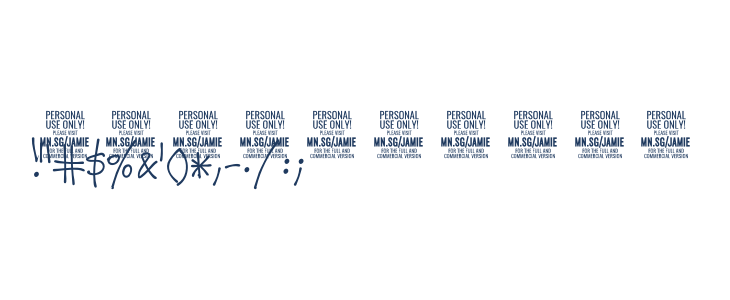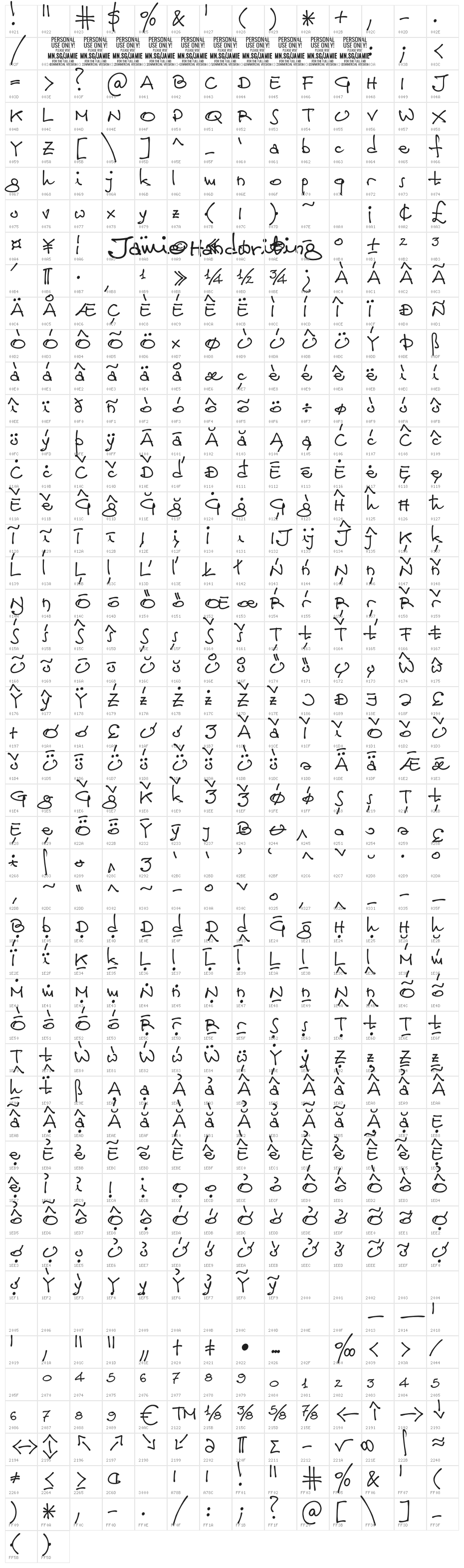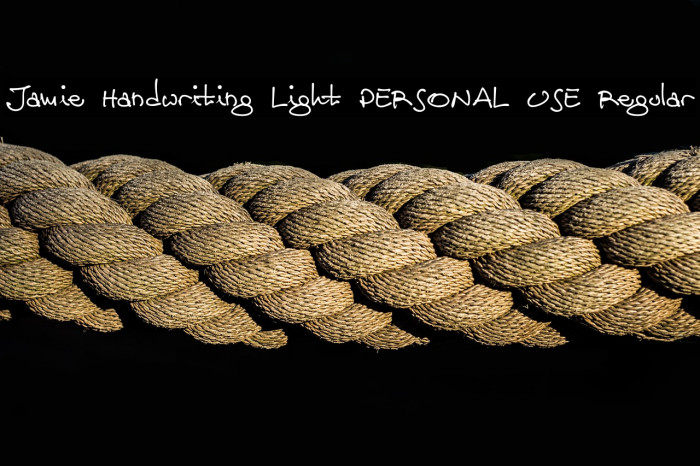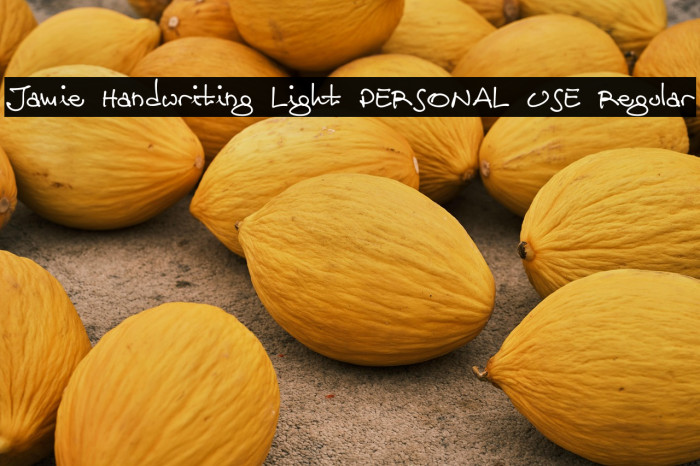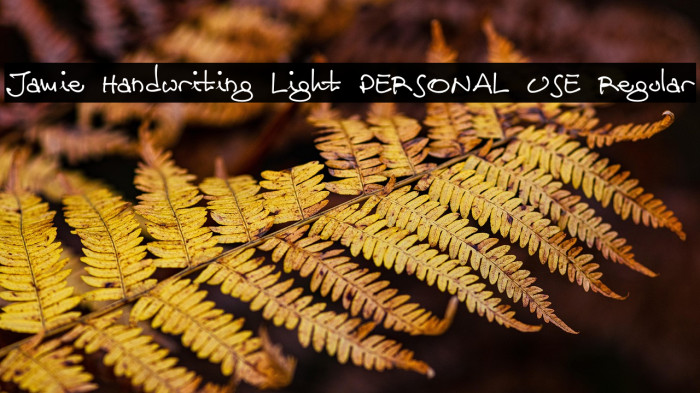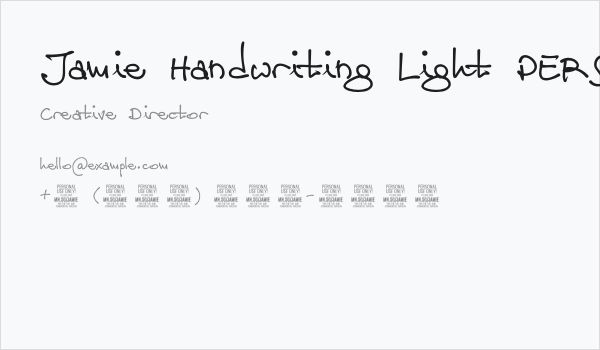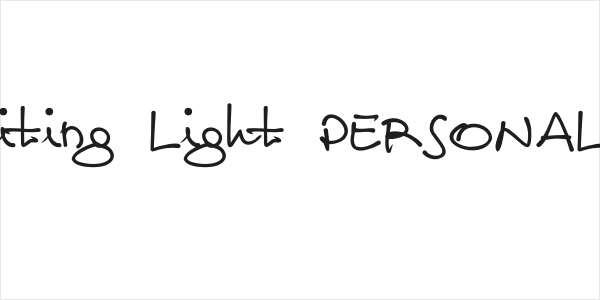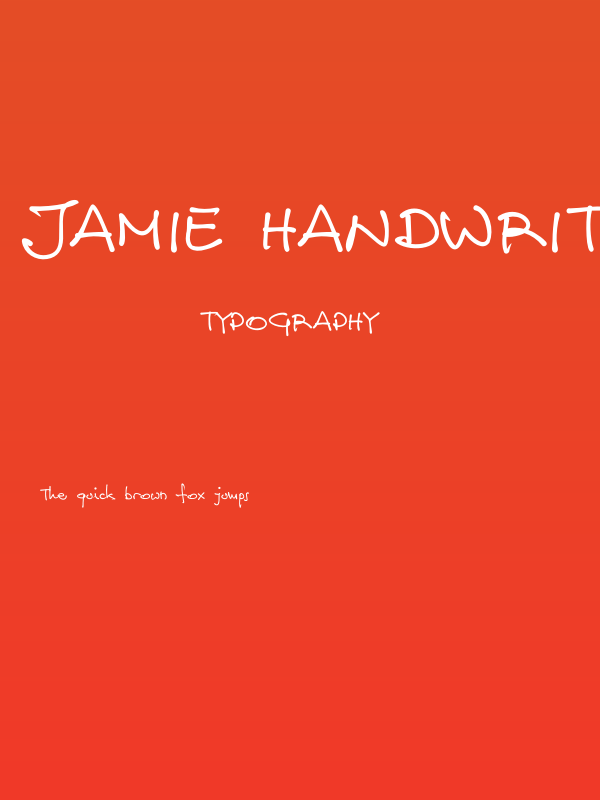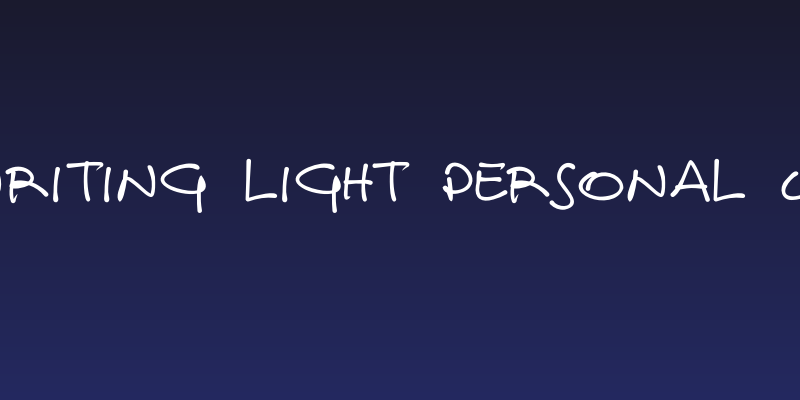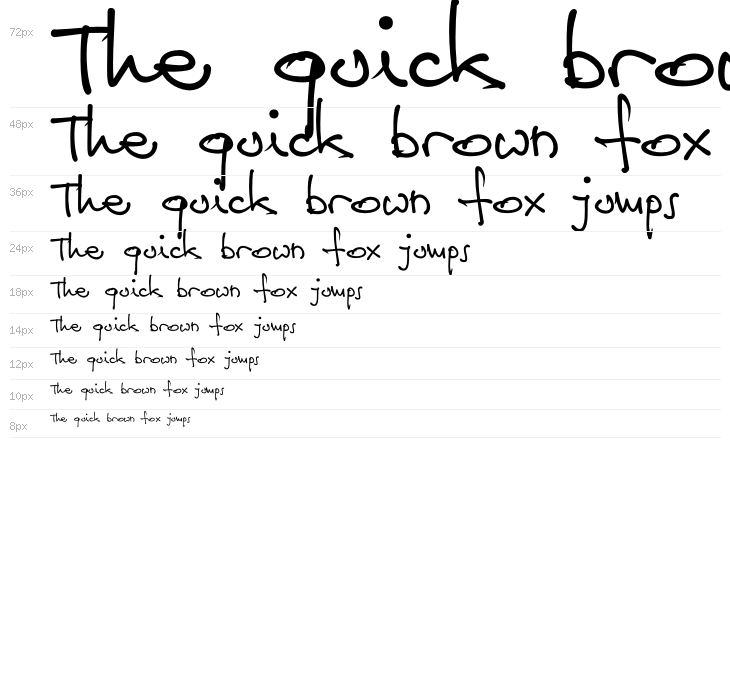
Jamie Handwriting Light PERSONAL USE Regular Font
Jamie Handwriting Light PERSONAL USE Regular Description
This font exhibits a playful and casual handwritten style, characterized by its fluid and organic strokes. The letters have a natural, free-flowing appearance, with varying stroke thickness that adds a dynamic and lively feel. The uppercase and lowercase letters maintain a consistent style, with rounded edges and a slightly slanted orientation, enhancing the handwritten aesthetic. The numerals and special characters are crafted with the same attention to detail, ensuring uniformity across the character set. This font is perfect for projects that require a personal touch, such as greeting cards, invitations, or informal branding.
| Use Case | Logos, Headlines, Informal Text |
| Proposed Projects | Ideal for greeting cards, invitations, personal branding, and informal designs. |